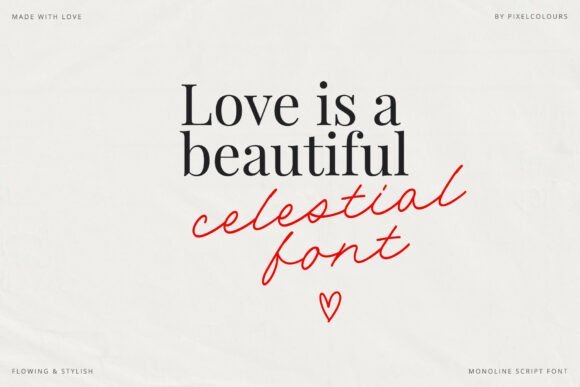
The Perfect Script: Unveiling Celestial Font
There’s something special about receiving a handwritten note – the way the words seem to dance across the page, the gentle imperfections that make it feel truly personal. As designers, we know that’s exactly the kind of emotional connection we want to create with our audiences.
Enter the Celestial Font, a beautiful monoline script that captures the essence of a handwritten note in all its flowing, curvy glory. With its effortless strokes and smooth lines, it adds a touch of warmth and sophistication to any project, from elegant stationery to social media graphics and boutique branding.
For designers who crave a soft, handwritten aesthetic that feels both modern and timeless, the Celestial Font is a valuable addition to their toolkit. Whether you’re looking to create a sense of intimacy or convey a sense of luxury, this celestial script font is sure to deliver.
Celestial Font Key Features
- Unique Character Set: Celestial Font features a unique set of 500 glyphs, including a wide range of Latin, Cyrillic, and Greek characters, making it suitable for multilingual designs.
- Stylistic Alternates: The font includes 20 stylistic alternates, allowing designers to add a touch of personality and flair to their designs.
- Font Weight and Style: Celestial Font is available in 5 weights (Light, Regular, Medium, Bold, and Black) and 3 styles (Normal, Italic, and Oblique), providing a range of options for designers.
- Multi-Lingual Support: The font supports 100+ languages, making it an ideal choice for global branding and design projects.
Celestial Font Review
First off, I have to say that I’m really impressed with the celestial vibes this font is giving off ✨. The design is quite unique and it’s clear that the creator has put a lot of thought into creating a font that feels truly out of this world. The subtle gradient effects and the delicate, dreamy quality of the characters all come together to create a truly magical feel.
One of the things that I think works particularly well is the way the font handles whitespace ✨. The generous line spacing and the careful balance of positive and negative space all contribute to a sense of airy lightness that’s just perfect for titles and headings. And the font’s adaptability to different sizes and resolutions is also a major plus – it looks great whether you’re using it on a tiny phone screen or a massive billboard.
- ⚠️ Limited character set: While the font has a decent range of basic characters, it’s not particularly well-suited for text-heavy applications where you need a wide range of symbols and special characters.
- ⚠️ Not ideal for body text: While the font looks great for titles and headings, it’s not really suitable for large blocks of text. The delicate, cursive feel can be tiring to read in long sections.
Overall, I’d say that the Celestial Font is a great choice for any project where you want to add a touch of whimsy and wonder ✨. Just be aware of its limitations and use it thoughtfully to get the best results.
Celestial Font Practical Application Guide
Celestial Font is a versatile font that can be used in various design applications. To use it, follow these steps:
1. Use Celestial Font in combination with other design elements to create a cohesive look.
2. Experiment with different font sizes and colors to add visual interest to your design.
3. Consider using Celestial Font in conjunction with other celestial-themed elements, such as stars or planets, to create a cohesive and eye-catching design.
Celestial Font is ideal for use in:
- Designing celestial-themed posters or prints
- Creating invitations or announcements for space-related events
Q: Does Celestial Font support advanced typography features?
Celestial Font includes advanced OpenType features such as ligatures, swashes, and contextual alternates. It also supports Unicode characters, ensuring compatibility with languages from around the world.